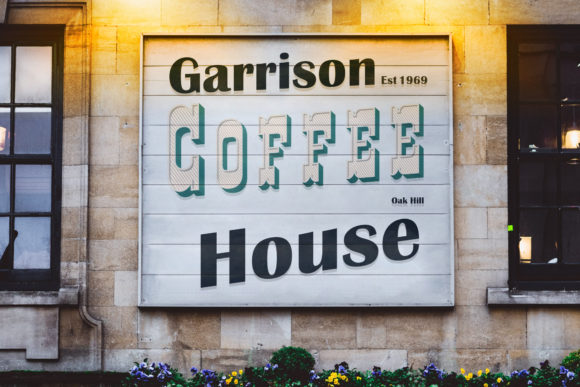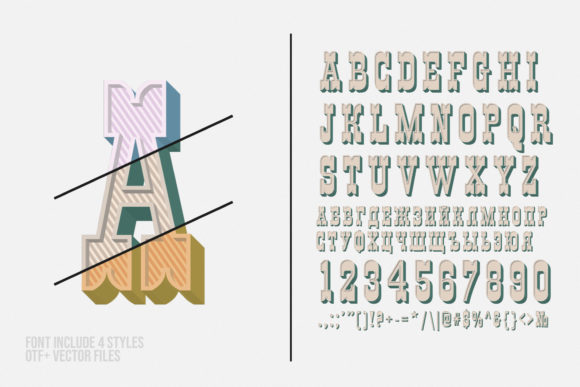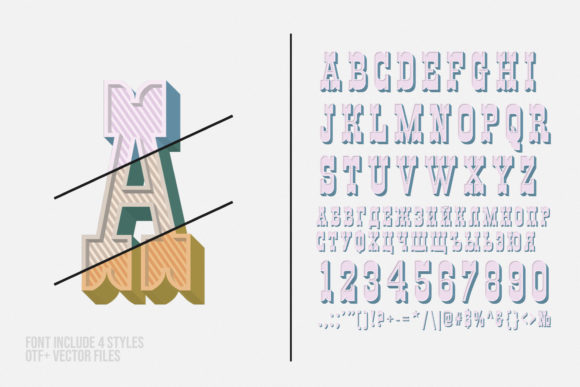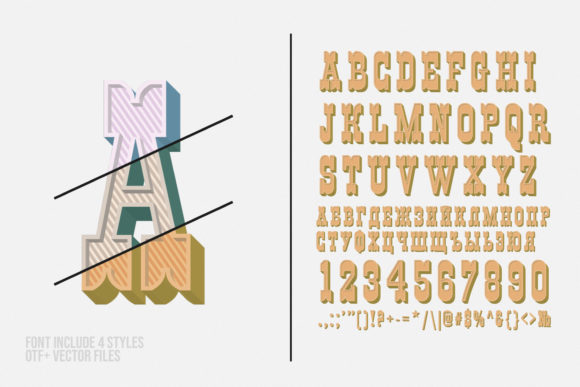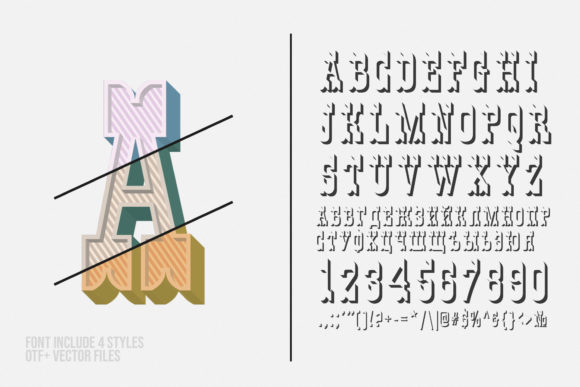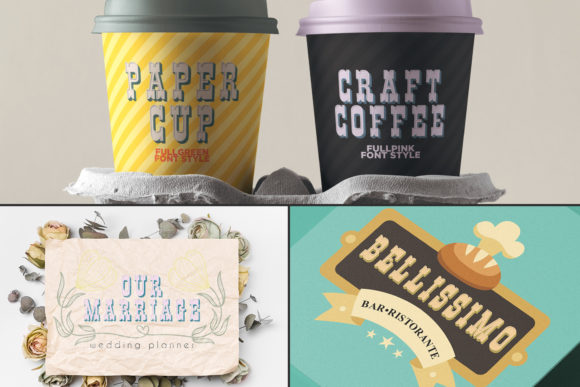
Introduction to Moscow Font
You know that moment when a design just clicks? The colors, the typography, the overall vibe – everything comes together in perfect harmony. For designers, finding the right font can be the difference between a good project and a great one. That’s where the Moscow Font comes in – a cool and western-looking color font that’s sure to elevate any creation.
Whether you’re working on a design project, creating graphics for social media, or crafting a unique logo, the Moscow Font is a valuable resource that can take your work to the next level. With its high-quality design and transparent background, this font is a must-have for any designer looking to add a touch of sophistication to their creative project.
Key Features of Moscow Font
- High-quality, professional design ideal for creative projects and presentations.
- Transparent background, allowing for easy customization and layering.
- Includes a wide range of characters, including Cyrillic and Latin alphabets, for a comprehensive design solution.
- Perfect for designers working on various creative projects, from graphic design to digital art.
Honest Review: Moscow Font
I recently came across the Moscow Font, a high-quality design resource that has caught my attention. As a designer, I’m always on the lookout for fonts that can elevate my creative project and give it a unique touch.
What I like about the Moscow Font is its elegant and sophisticated design. It has a transparent background, which makes it easy to pair with other fonts and design elements. The font’s high quality is evident in its crisp and clear lines, making it perfect for various design applications.
- ✨ Elegant and sophisticated design
- ✨ Transparent background for easy pairing
- ✨ High-quality lines for clear typography
- ⚠️ Limited font styles and variations
- ⚠️ Not suitable for very small text sizes
Overall, I’m impressed with the Moscow Font’s potential to elevate my design projects. However, I wish there were more font styles and variations available. Nevertheless, it’s a great addition to my design resource library, and I’m looking forward to using it in my next creative project. The Moscow Font is available for free download, making it a great option for designers on a budget.
Tips for Getting the Most Out of Moscow Font
For the best results, use Moscow Font on a high-quality design project that showcases its unique features. You can also experiment with different font sizes and styles to create a visually appealing design. Additionally, consider using the font’s transparent background feature to create a layered look that adds depth to your design.
Moscow Font is a versatile font that can be used in a variety of creative projects, including graphic design, web design, and print design. It’s also a great choice for creating a free download template or a design resource that can be used in multiple projects.